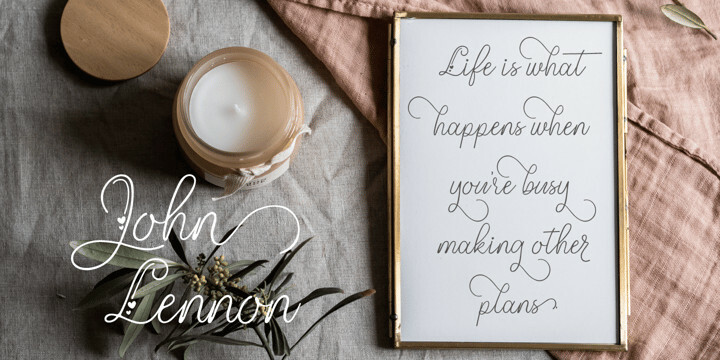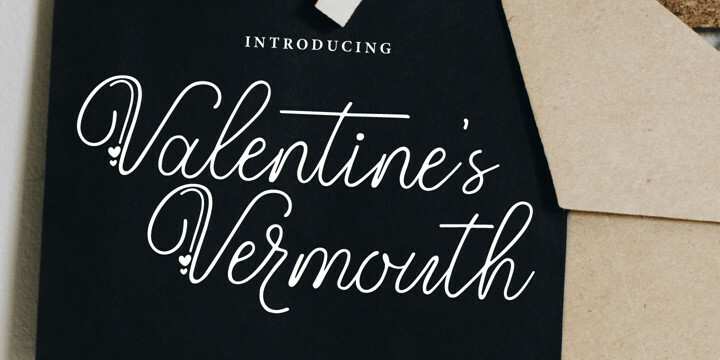
Valentines Vermouth Font Family
Valentines Vermouth Font FamilyValentine’s Vermouth is a beautiful and light handwritten font with a unique feel and a stunning impact.